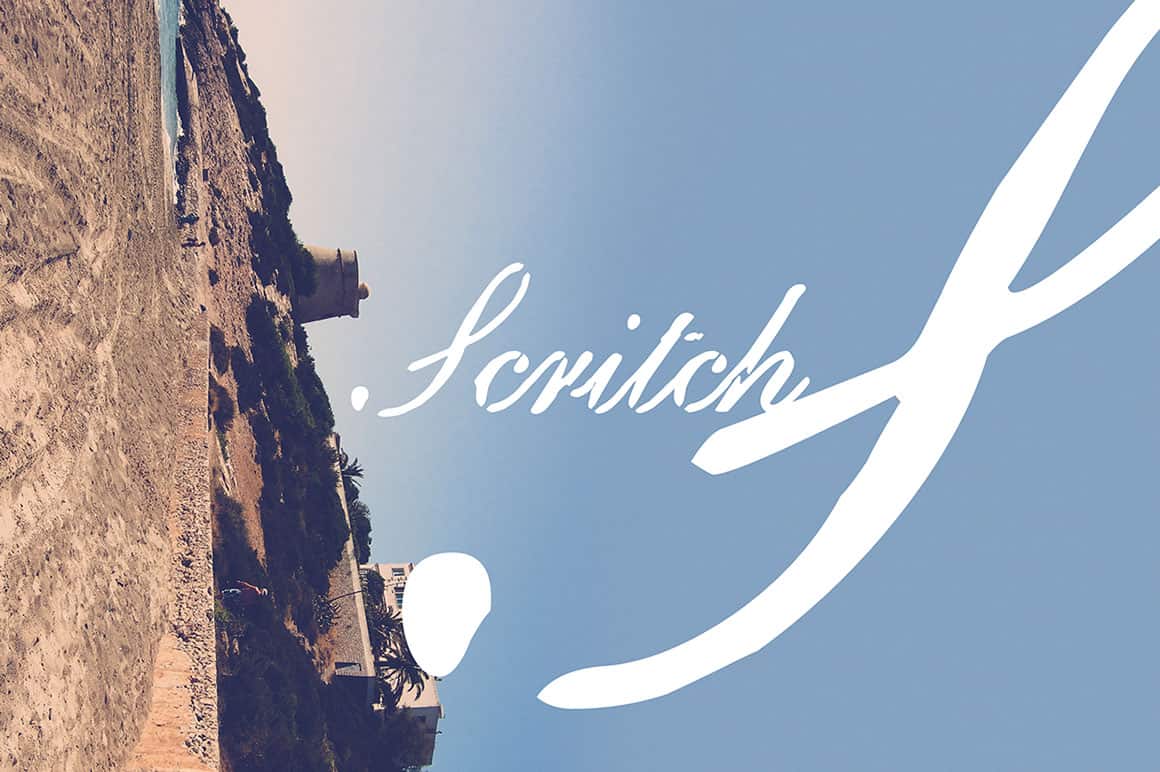
Scritch Font
Scritch – Free Grunge Script Font
This cool grunge style custom font is from Carl Seal. With unique grunge style and great for your new creative projects. Download and enjoy 😉